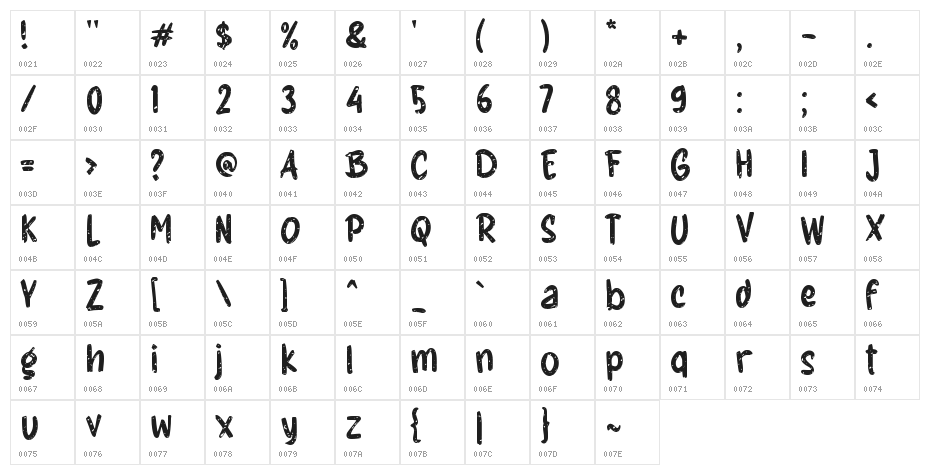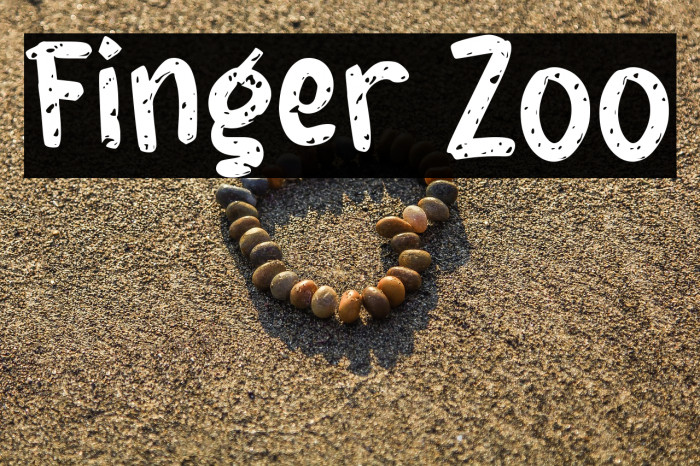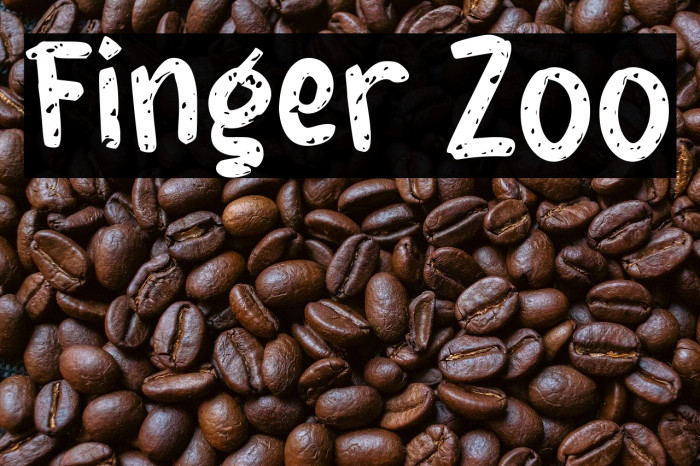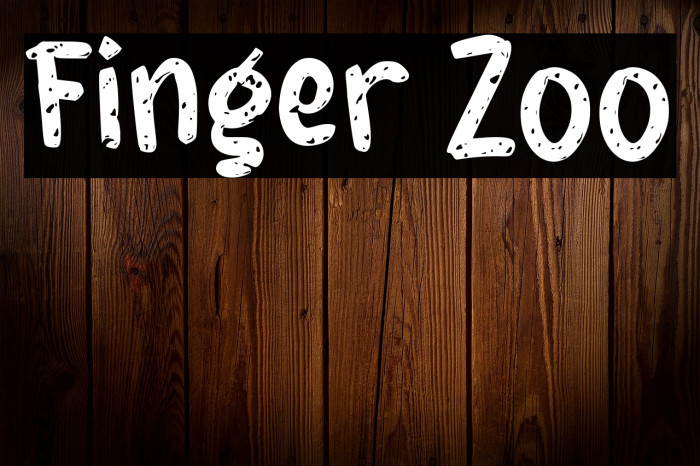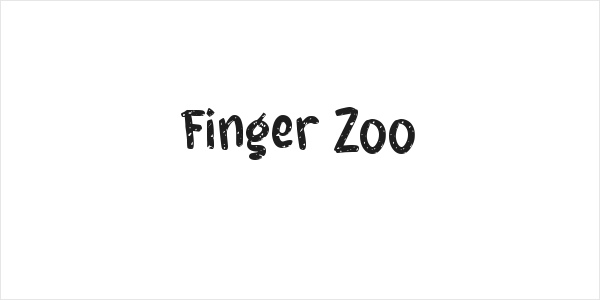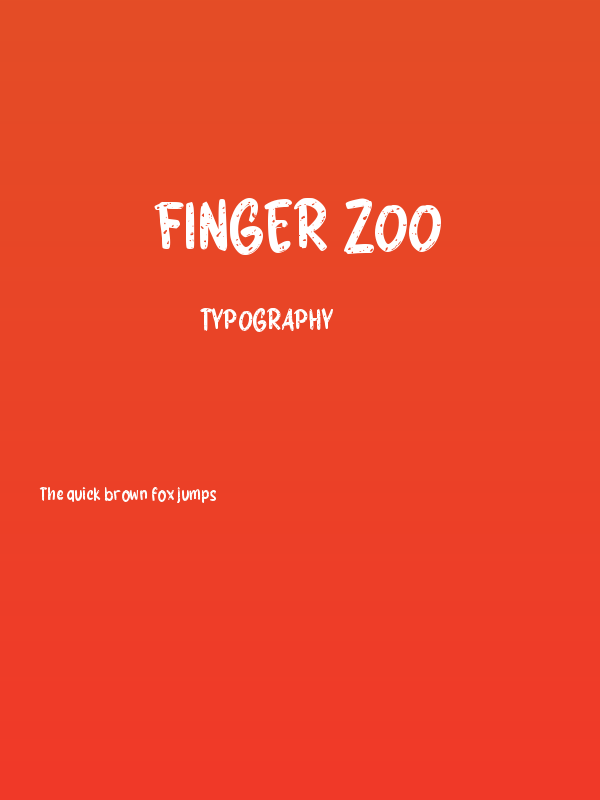
Finger Zoo Font
Finger Zoo Description
This playful and whimsical font features a hand-drawn style with a textured appearance, reminiscent of chalk or crayon. The characters are bold and slightly irregular, adding a sense of fun and creativity. Each letter has a unique, organic shape, contributing to its informal and lively personality. The font includes both uppercase and lowercase letters, numerals, and a variety of special characters, making it versatile for various design needs. Its distinct style is perfect for projects that require a touch of humor and lightheartedness.
| Use Case | Logos, Headlines, Posters |
| Proposed Projects | Ideal for children's books, playful branding, party invitations, and creative posters. |